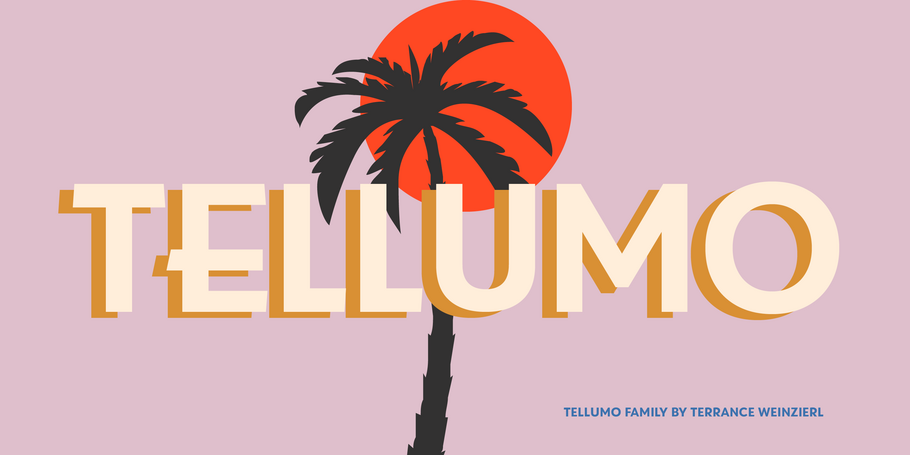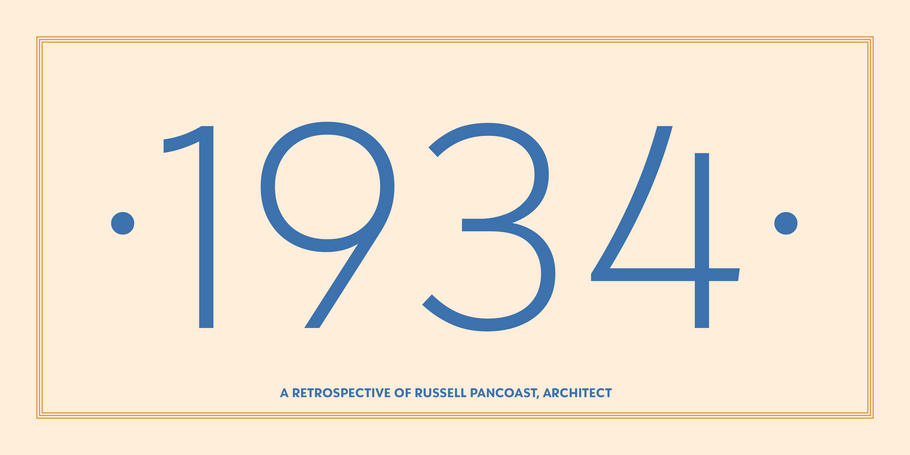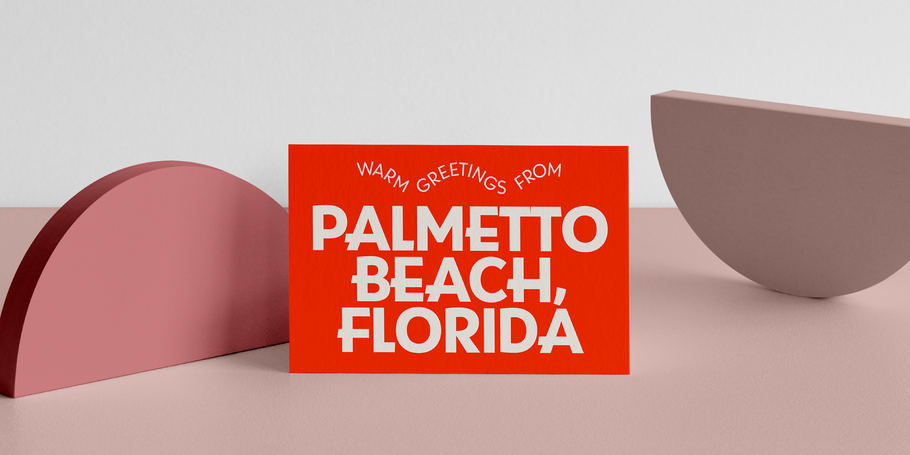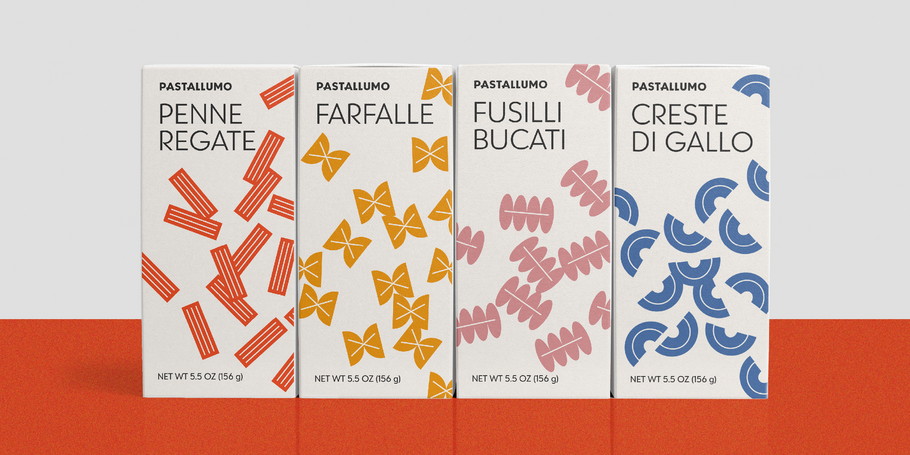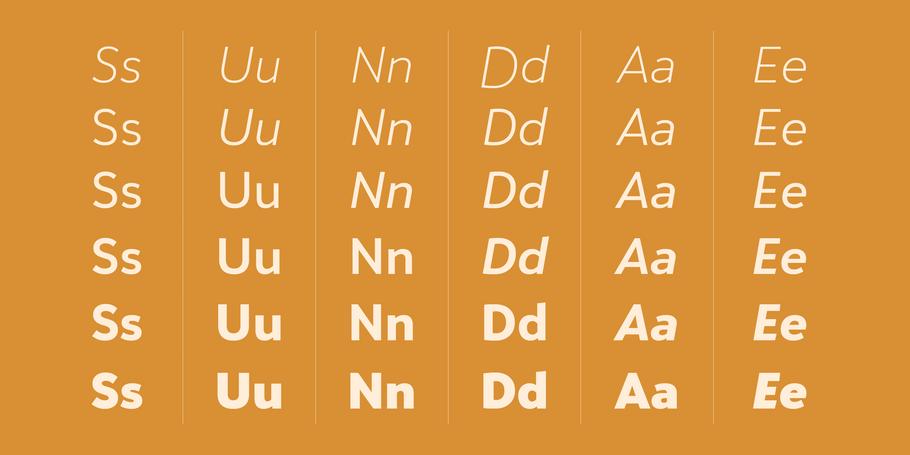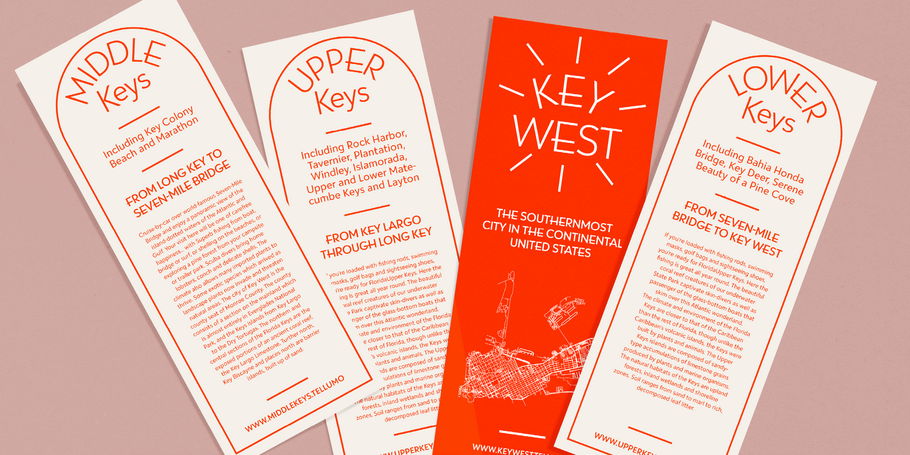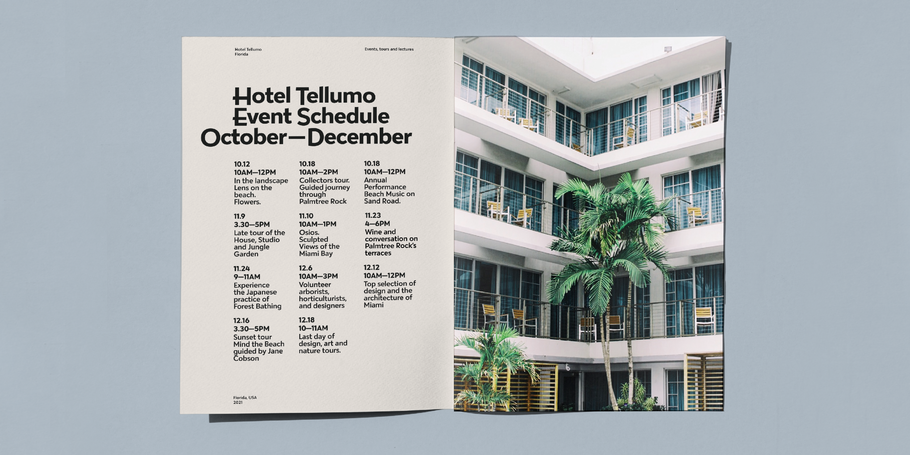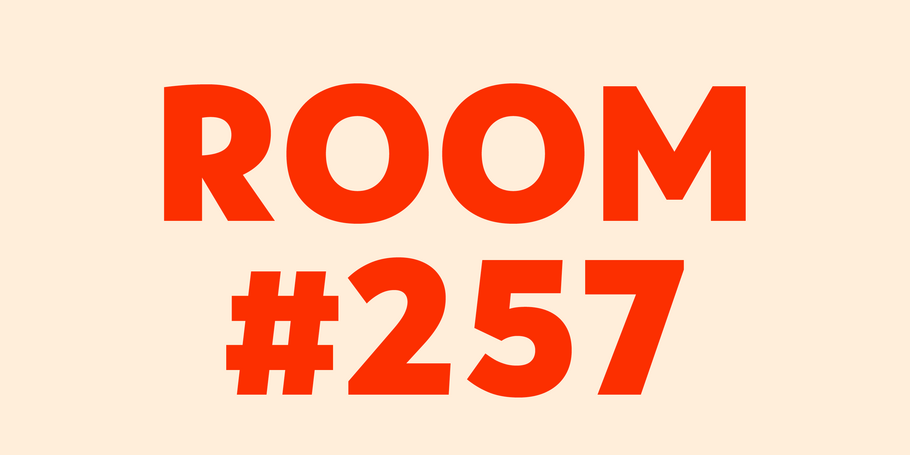
Tellumo
Big stuff. Little things. Buttery text.
Tellumo, an elegant humanist geometric sans serif, radiates warmth, charm, and joyfulness from its geometric foundation.
The swash caps add magnitude and sparkle to short headlines and packaging. Tellumo has a balance of clarity and personality, suitable for branding and advertising of all kinds, print & digital design alike.
Tellumo, a new humanist geometric sans serif typeface, has all the attributes you need for a workhorse sans with a few surprising details.
It has moderate proportions, a low stroke contrast, open apertures, and an x-height that makes it drive with ease in running text. A modest range of six weights, from Thin to ExtraBold, make it versatile without being overwhelming. The lightest and heaviest weights are best saved for headlines and subheads. It features a set of swash caps that can add magnitude and sparkle to short headlines, making it excel in packaging designs.
Tellumo feels at home with Mid-century Modern and Art Deco aesthetics. It looks precise, tidy, and welcoming for architecture and home goods. It looks clean, fresh and modern for beauty and wellness, or elegant and approachable for fashion. It has a balance of clarity and personality, suitable for branding and advertising of all kinds, print & digital design alike.
Tellumo radiates warmth, charm, and joyfulness from its geometric foundation.
Creative Type Director in the Monotype Studio, Terrance Weinzierl has been creating and modifying typefaces for the Monotype Library and a wide range of brands since 2008. In addition to working on custom projects for Microsoft, Google, Barnes & Noble, Domino’s and SAP, he’s designed type for video games, professional sports teams and auto manufacturers.